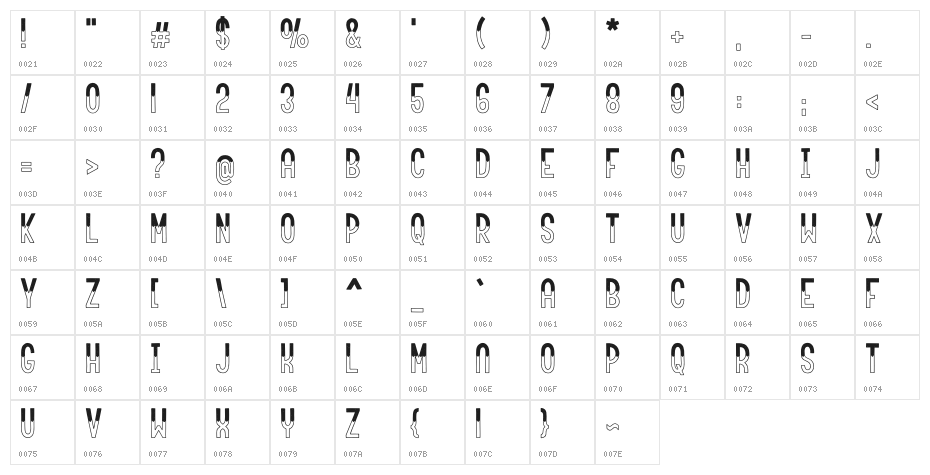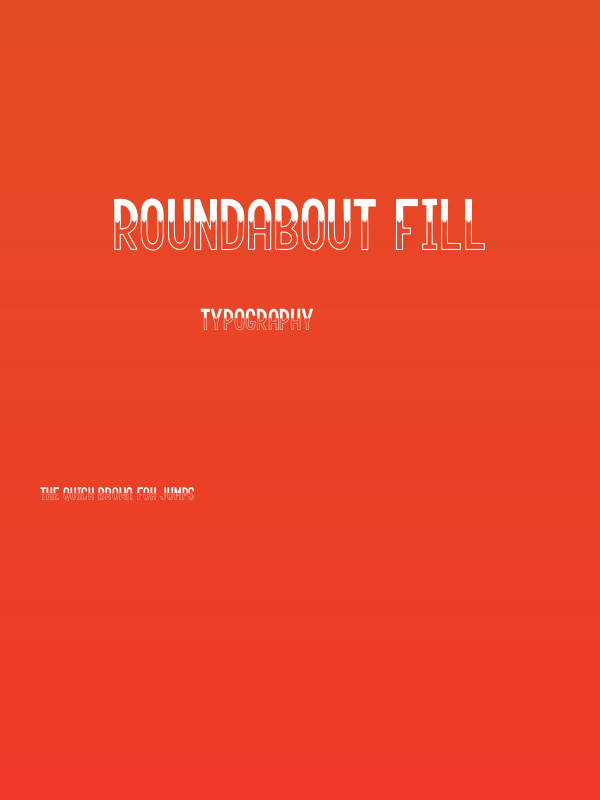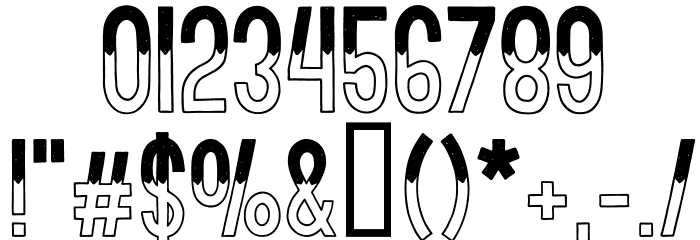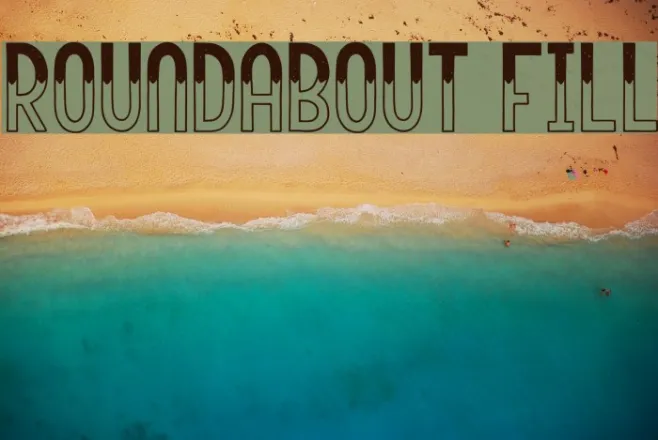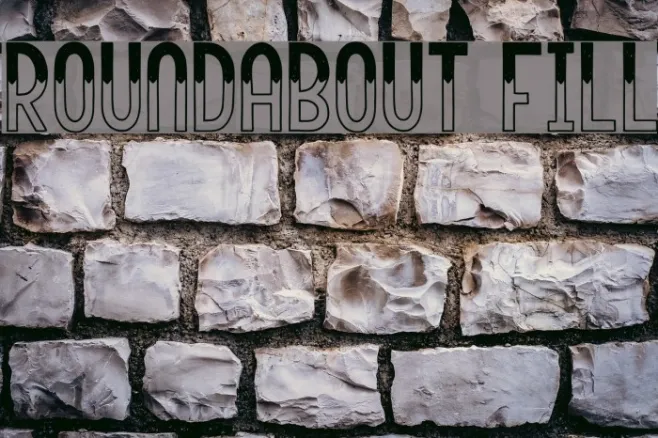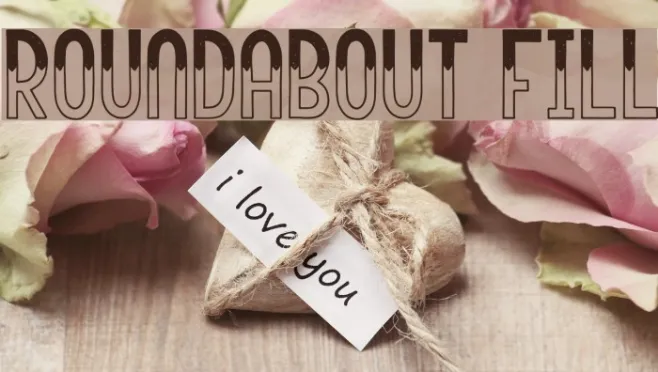
Roundabout Fill Font
Roundabout Fill Description
This font features a unique, decorative style with a playful and artistic flair. The uppercase and lowercase letters are designed with a bold outline, filled with a dripping effect that adds a dynamic and eye-catching element. The numerals and special characters maintain this theme, ensuring consistency across all glyphs. The overall appearance is both modern and whimsical, making it suitable for creative and unconventional projects. The font's design is characterized by its boldness and distinctiveness, with a focus on visual impact and artistic expression.